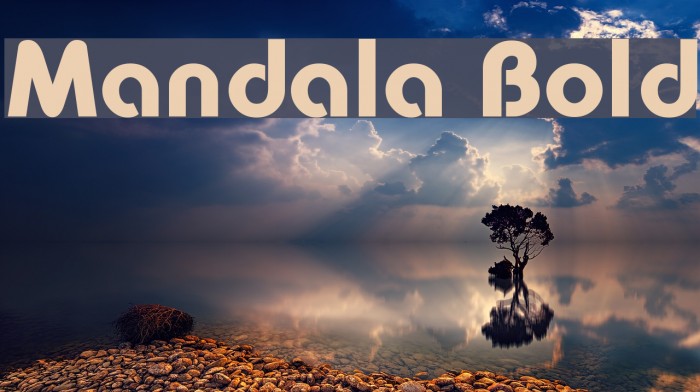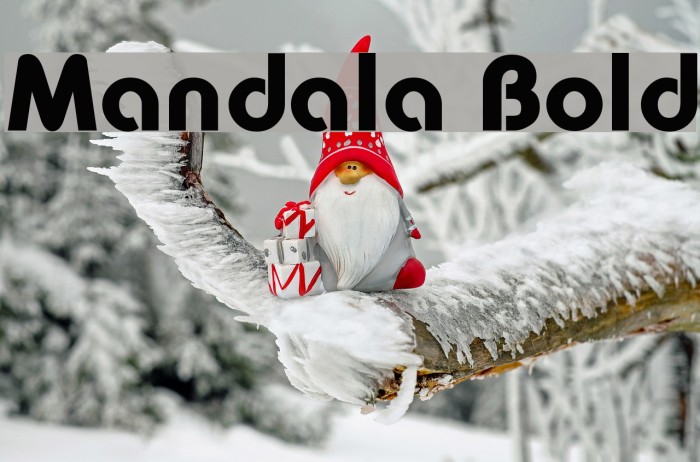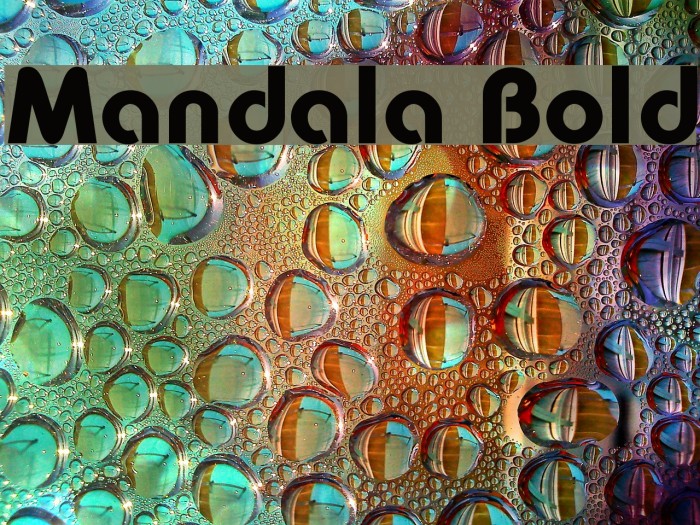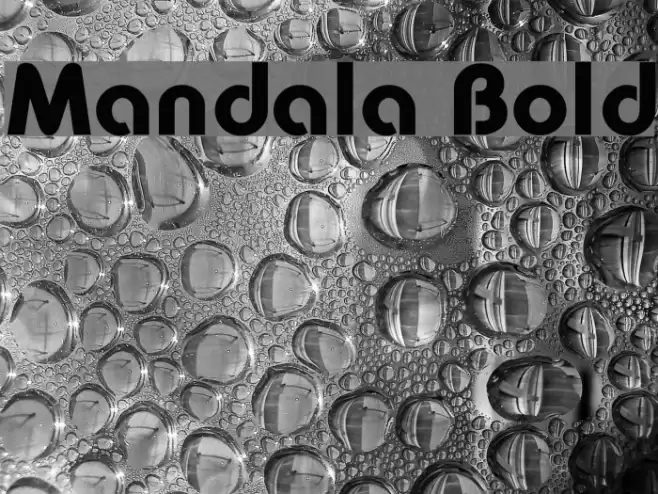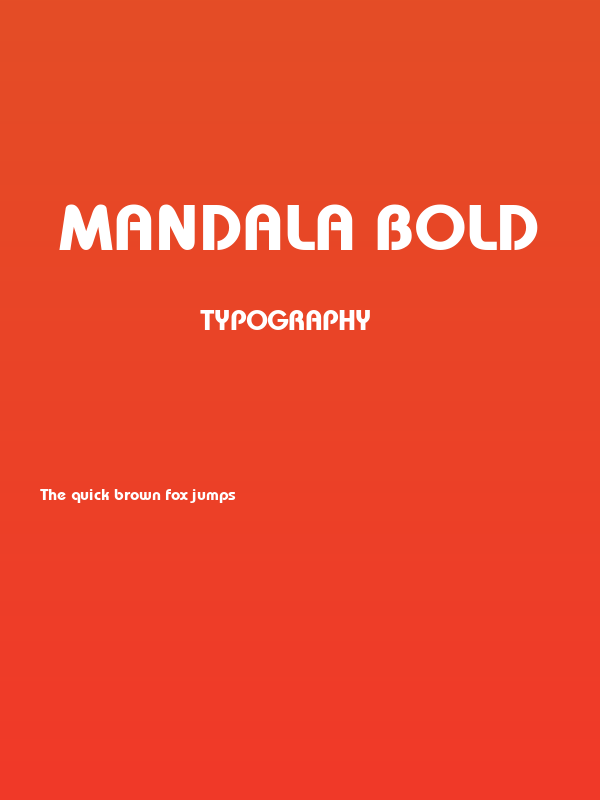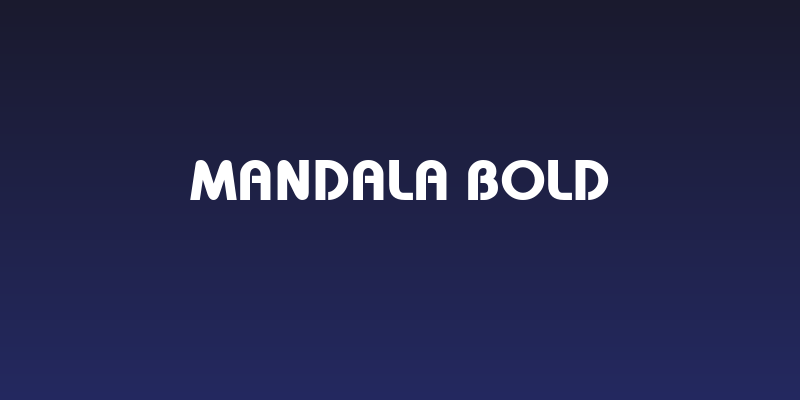
Mandala Bold Font
Mandala Bold Description
This font features a bold and rounded design with a modern and clean aesthetic. The uppercase and lowercase letters are well-proportioned, with a consistent thickness that gives a strong visual impact. The numerals are equally bold, maintaining the same rounded style, which ensures readability and uniformity across different text elements. The special characters are designed to match the overall style, providing a cohesive look. This font is suitable for projects that require a strong and contemporary appearance.
| Proposed Projects | Ideal for branding, headlines, posters, and digital media where a strong and modern presence is desired. |